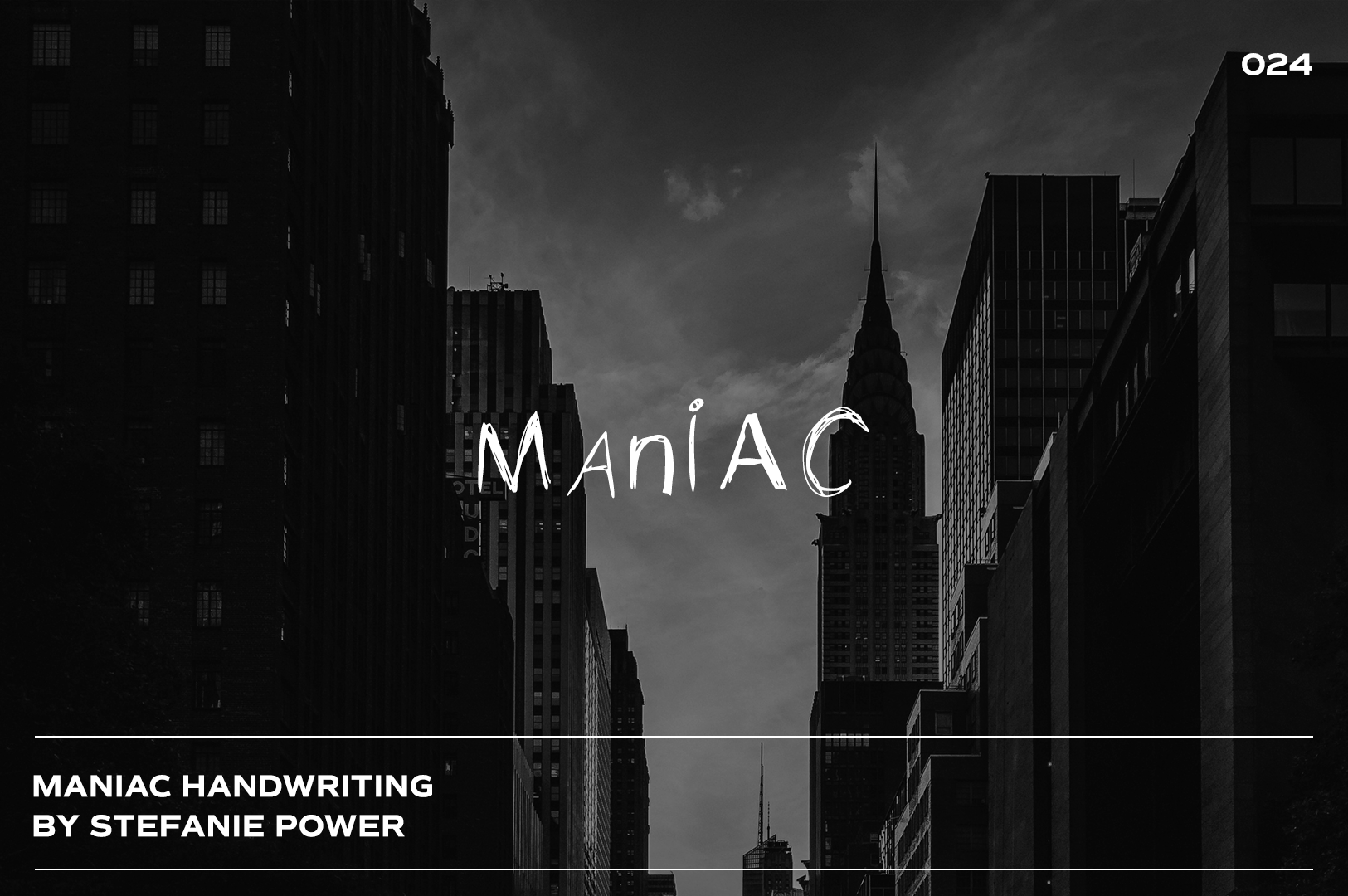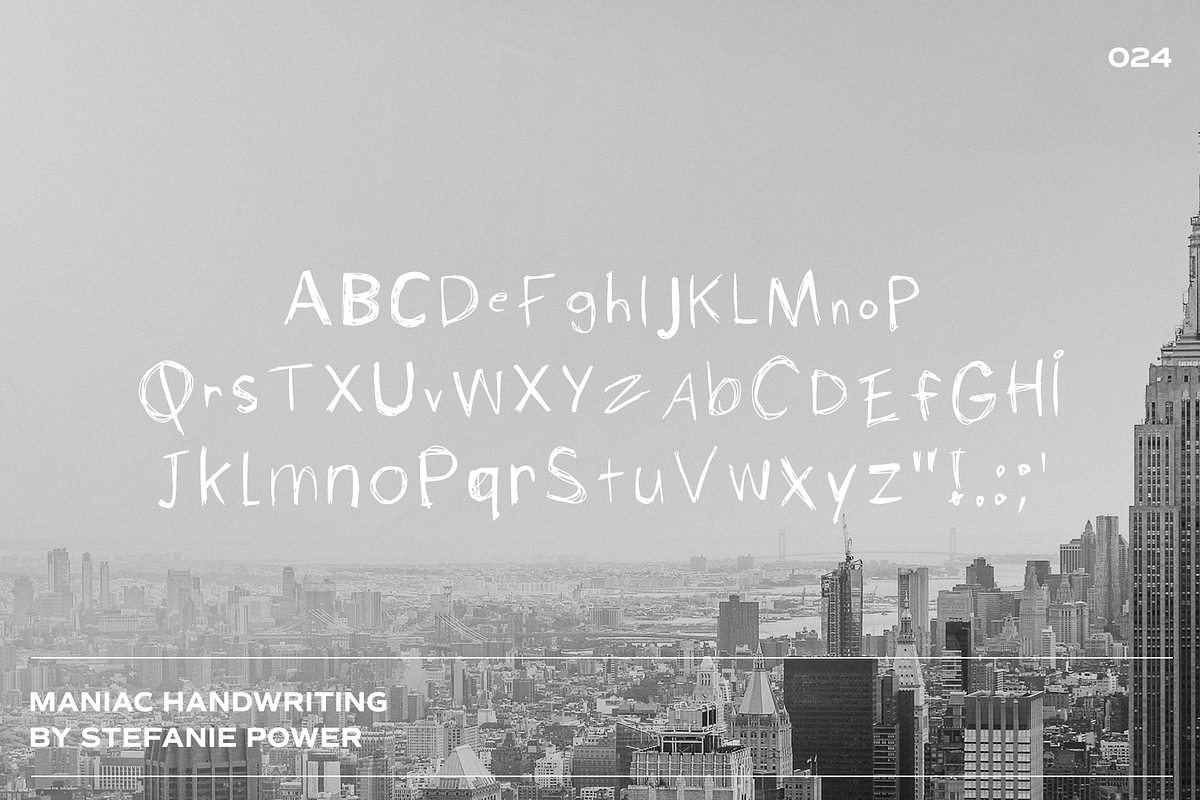
maniac Handwriting | Font
Introducing 'Maniac' - a manic font with alternate caps and scratched letters.
Maniac Handwriting • A handwritten script font containing upper & lowercase characters and a range of punctuation and numbers.